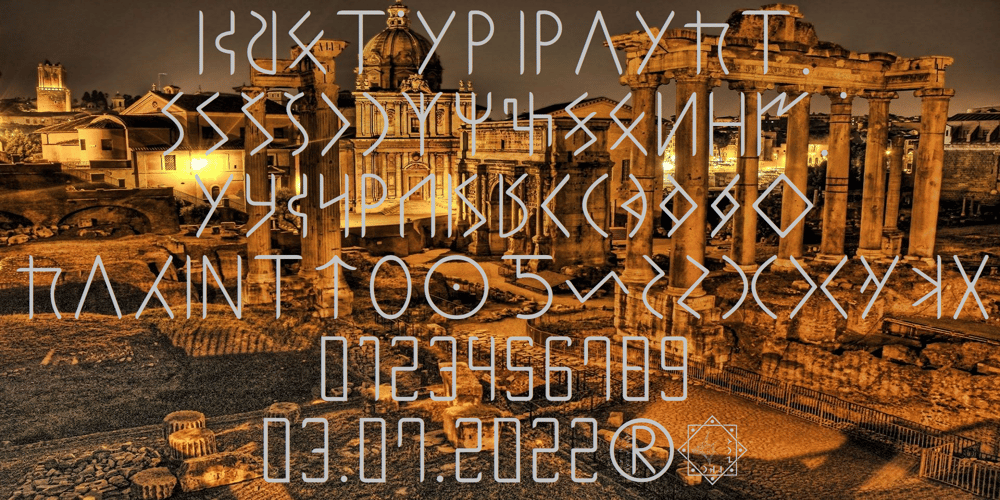
Ongunkan Sidetic Font Family was designed by Osman Nuri ALKAN and published by Runic World Tamgacı. Ongunkan Sidetic contains 1 styles and family package options. The Sidetic language is a member of the extinct Anatolian branch of the Indo-European language family known from legends of coins dating to the period of approximately the 5th to 3rd centuries BCE found in Side at the Pamphylian coast, and two Greek–Sidetic bilingual inscriptions from the 3rd and 2nd centuries BCE respectively. The Greek historian Arrian in his Anabasis Alexandri (mid-2nd century CE) mentions the existence of a peculiar indigenous language in the city of Side. Sidetic was probably closely related to Lydian, Carian and Lycian.The Sidetic script is an alphabet of the Anatolian group. It has about 25 letters, only a few of which are clearly derived from Greek. Consensus is growing that the script has essentially been deciphered.